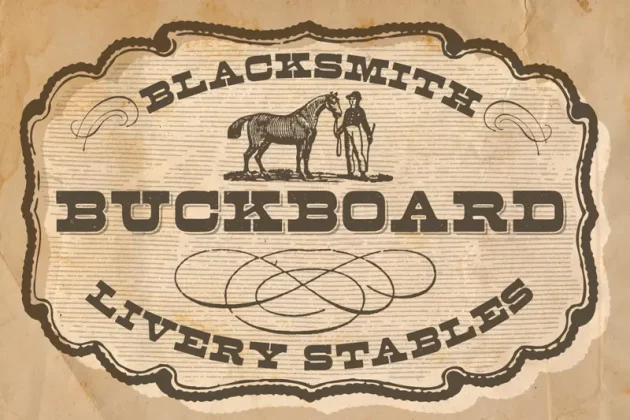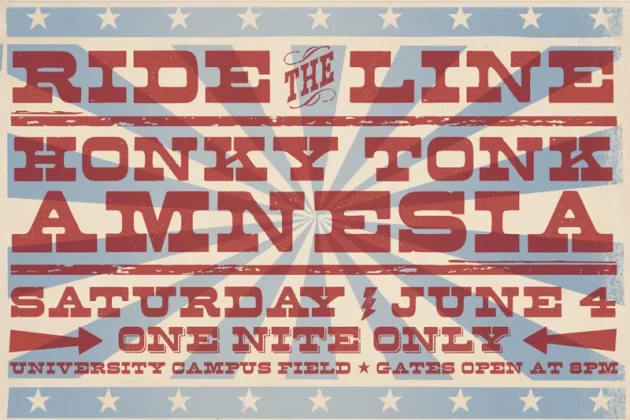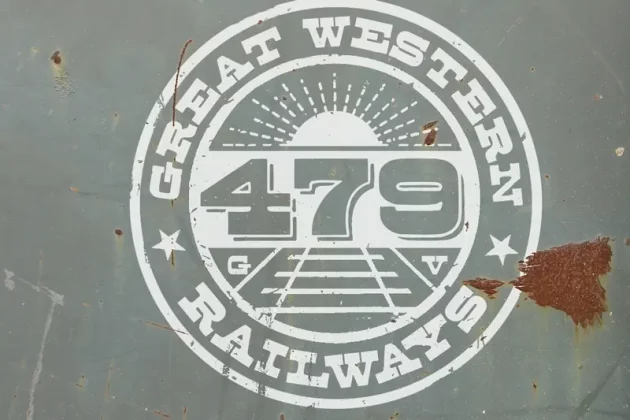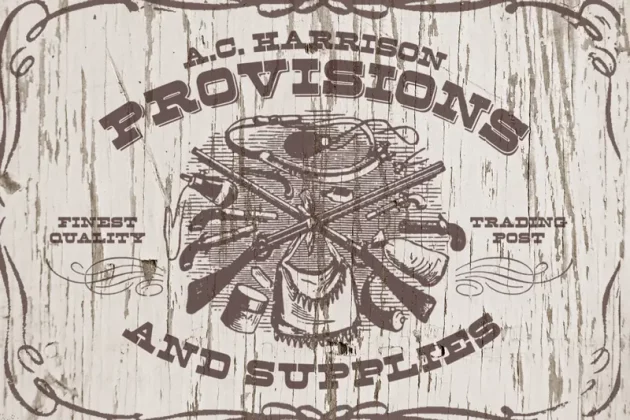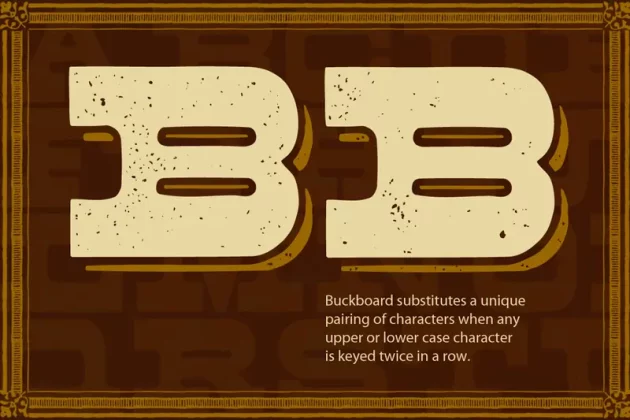
Buckboard Family Font
About Buckboard Family Font
Nothing says Wild West like a good ole authentic wood type font with its original patina. The Buckboard™ fonts have OpenType ligature features that substitute a unique pairing of characters when any letter is keyed twice in a row, as well as features for Old Style Numerals and Small Caps. The Buckboard Shadow font can be overlapped with Buckboard Regular to color the drop shadow separately.